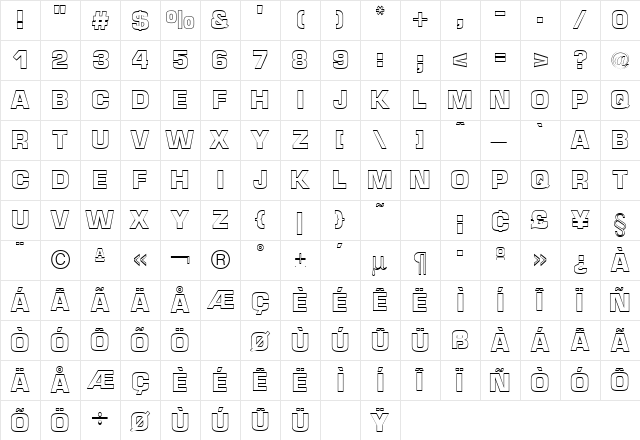
Micro Technic Outline Bold
Design Context for Micro Technic Outline Typeface
Micro Technic Outline channels digital-age aesthetics through its sharp, structured letterforms — ideal for brands that want to signal innovation. Its bold stroke weight gives it real presence on the page.
Pro Tip: Try Micro Technic Outline with generous letter-spacing in UI labels and navigation — the geometric forms benefit from room to breathe.